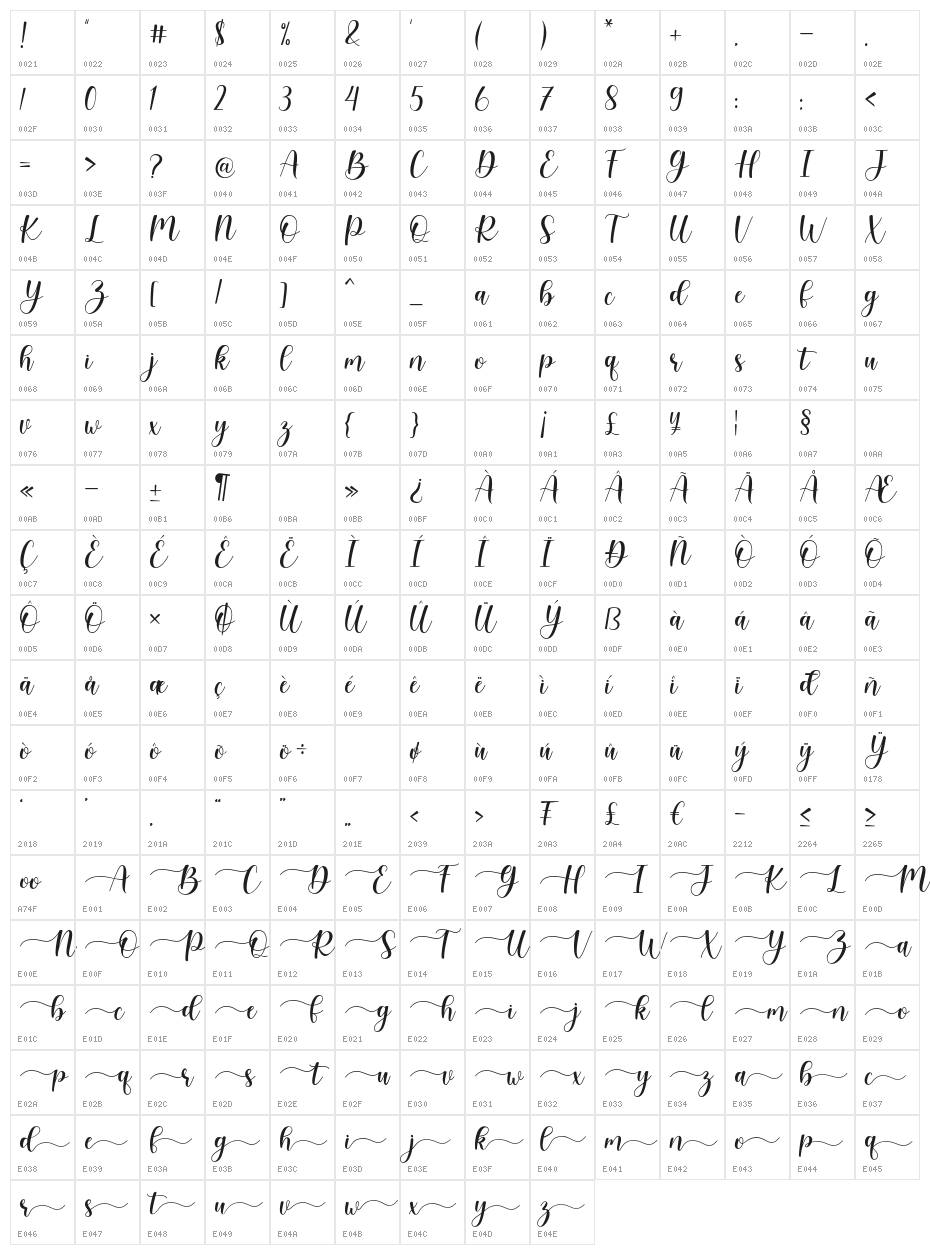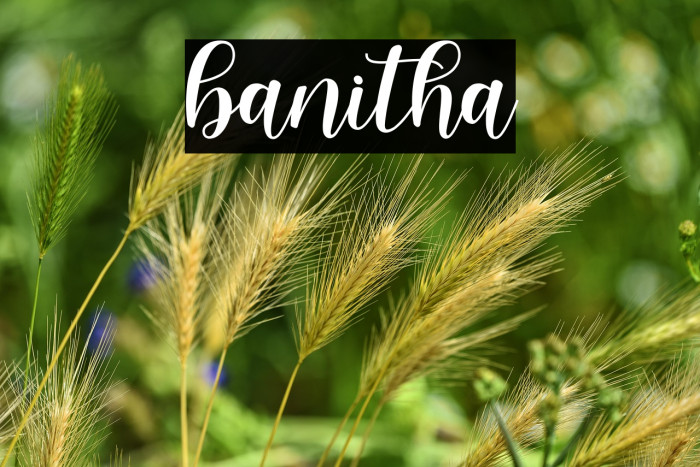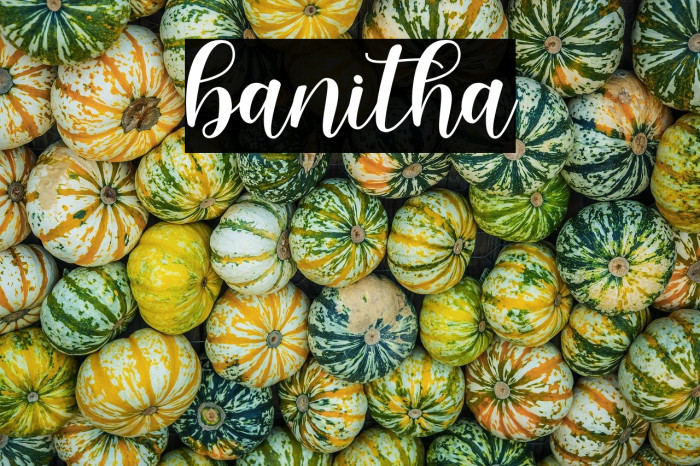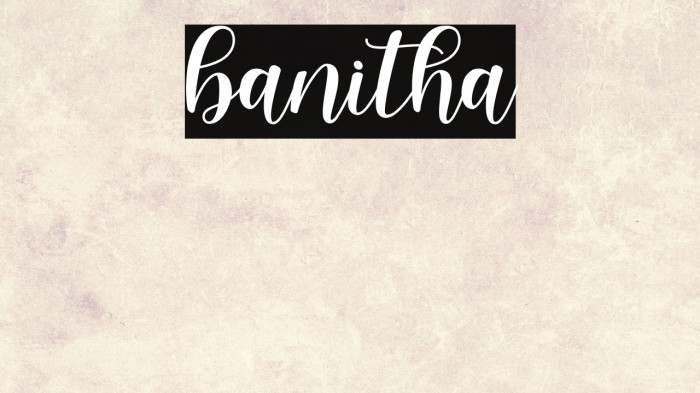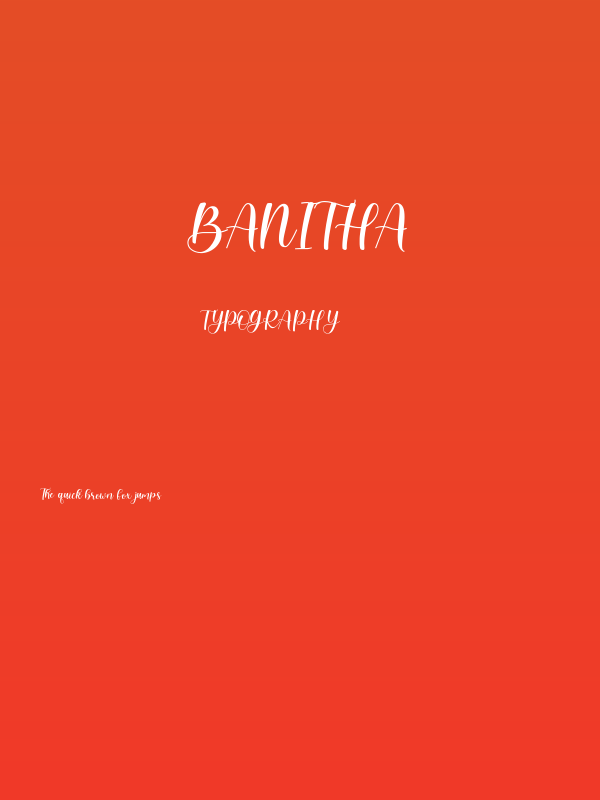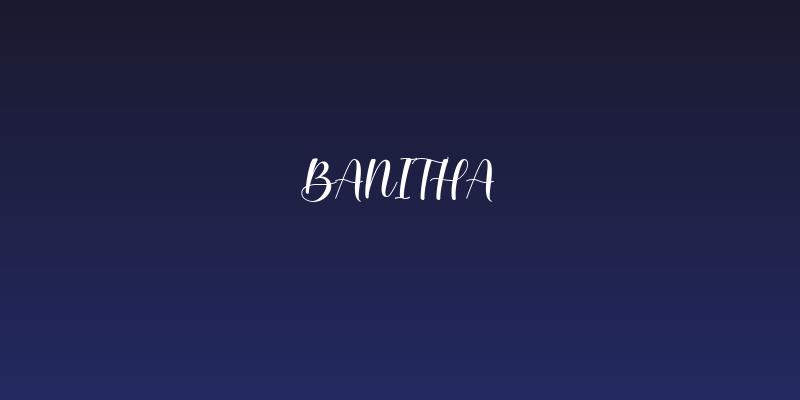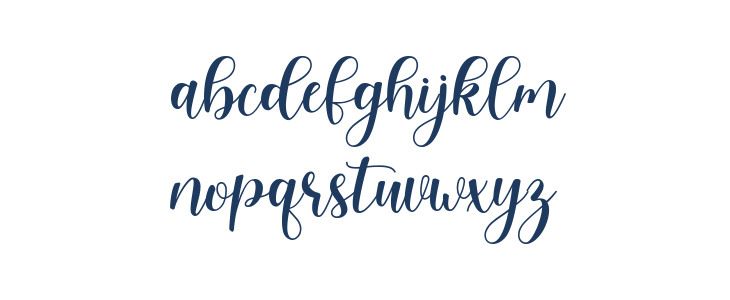
banitha Font
banitha Description
This elegant script font features a flowing, cursive style with smooth, sweeping curves and a sophisticated appearance. The uppercase letters are tall and graceful, with intricate loops and flourishes that add a touch of luxury. The lowercase letters maintain a consistent flow, with rounded forms and delicate connections between characters. The numerals are stylish and complement the overall aesthetic, while the special characters are designed with the same attention to detail. This font exudes a sense of elegance and charm, making it ideal for projects that require a personal, handwritten touch.